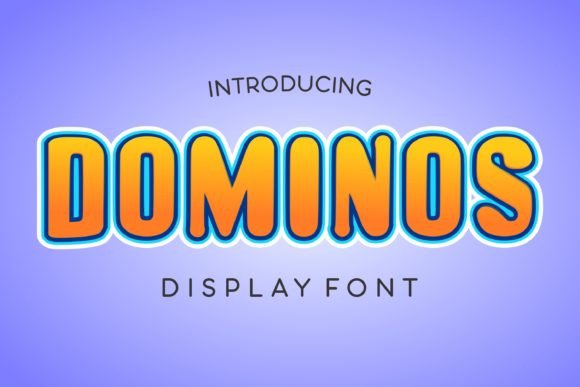
Dominos Font: Unleash Your Creations with a Touch of Playful Artistry
In the realm of visual communication, fonts hold the power to transform mere words into captivating expressions of art. Among the vast array of typographic wonders, the Dominos Font stands out as a true masterpiece, beckoning you to unleash your creativity and bring your design visions to life.
Crafted by the skilled hands of Riki.studio, Dominos Font is a display font that exudes a sense of fun and uniqueness. Its all-caps construction lends it an air of boldness and authority, making it the perfect choice for designs that demand attention.
Whether you're a seasoned designer seeking to elevate your projects or a budding artist exploring the world of typography, Dominos Font is your ultimate companion. Its versatility knows no bounds, effortlessly adapting to a wide range of creative endeavors.
Picture this: you're working on a design for a game system, and you need a font that captures the excitement and energy of the gaming world. Dominos Font steps up to the challenge, bringing a touch of whimsy and playfulness to your designs. The bold, chunky letters are reminiscent of classic arcade games, instantly transporting users to a world of pixels and adventure.
Or perhaps you're creating a children's book, and you want a font that sparks imagination and sparks joy. Dominos Font delivers once again, with its playful and whimsical style that perfectly complements the innocence and wonder of childhood. The rounded edges and vibrant characters bring life to your stories, creating a magical reading experience for young minds.
But Dominos Font's charm extends far beyond these specific examples. It's a font that empowers you to explore your creativity and express yourself in countless ways. Whether you're designing posters, logos, social media graphics, or anything else your imagination can conjure, Dominos Font will be your faithful companion, adding a touch of artistry and charm to every project.